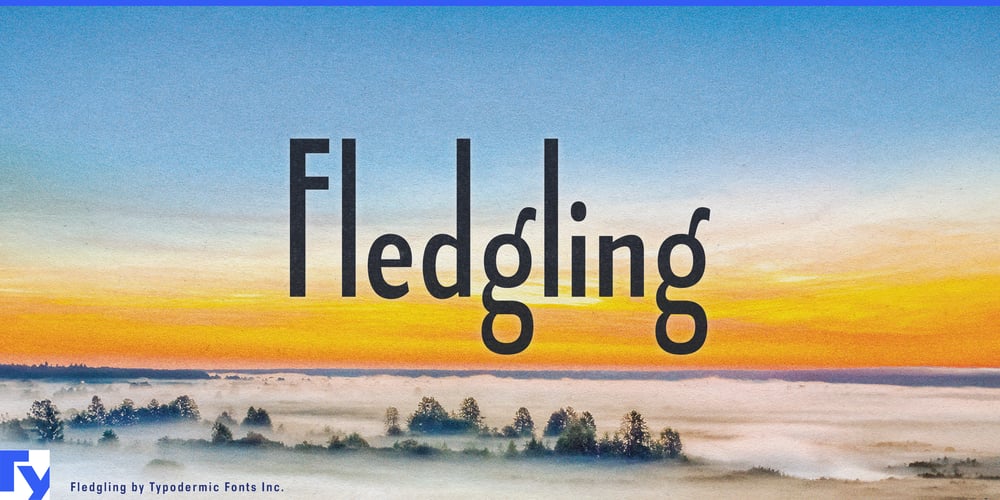
Fledgling Font Family was designed by Ray Larabie and published by Typodermic. Fledgling contains 16 styles and family package options. Enter the world of Fledgling, a sans-serif typeface that redefines elegance in the digital age. With its high waist and low x-height, Fledgling doesn’t just occupy space—it sculpts it, creating a silhouette as distinctive as it is refined.This isn’t your everyday sans-serif. Fledgling’s delicate curves and sophisticated contours speak the language of high fashion, making it the go-to choice for projects that demand a touch of understated luxury. From sleek magazine layouts to cutting-edge brand identities, Fledgling lends an air of exclusivity to every application. But Fledgling’s beauty isn’t just skin deep. Its OpenType capabilities showcase a commitment to typographic finesse. Numeric ordinals add a dash of style to your rankings, while fractions and old-style numerals ensure that even the most complex numerical data is presented with grace. It’s these thoughtful details that transform Fledgling from a mere font into a comprehensive design tool.With eight weights and their oblique counterparts, Fledgling offers a full spectrum of expression. From whisper-thin headlines that exude ethereal beauty to bold statements that command attention, this typeface family adapts to your creative vision with effortless versatility. Fledgling’s sophistication transcends linguistic boundaries. Supporting an extensive range of Latin-based European languages, Vietnamese, Greek, and most Cyrillic-based writing systems, it’s ready to bring its refined aesthetic to global audiences. Whether you’re designing for a Parisian runway, a Moscow art gallery, or a trendsetting Hanoi boutique, Fledgling communicates with cosmopolitan flair.This typeface is for designers who understand that true elegance lies in the details. It’s for brands that aim to position themselves at the forefront of style, and for projects that require a typographic voice as nuanced as it is bold. Fledgling doesn’t just complement your design—it elevates it, adding layers of sophistication with every character. So, when your project calls for more than just words—when it demands a typographic presence that’s as captivating as it is communicative—turn to Fledgling. It’s not about choosing a font; it’s about making a statement. With Fledgling, you’re not just designing; you’re crafting a visual experience that resonates with refined sensibility and contemporary chic.In a world where first impressions are everything, let Fledgling be the voice that sets you apart. Because sometimes, the most powerful statements are made in the subtlest of ways.